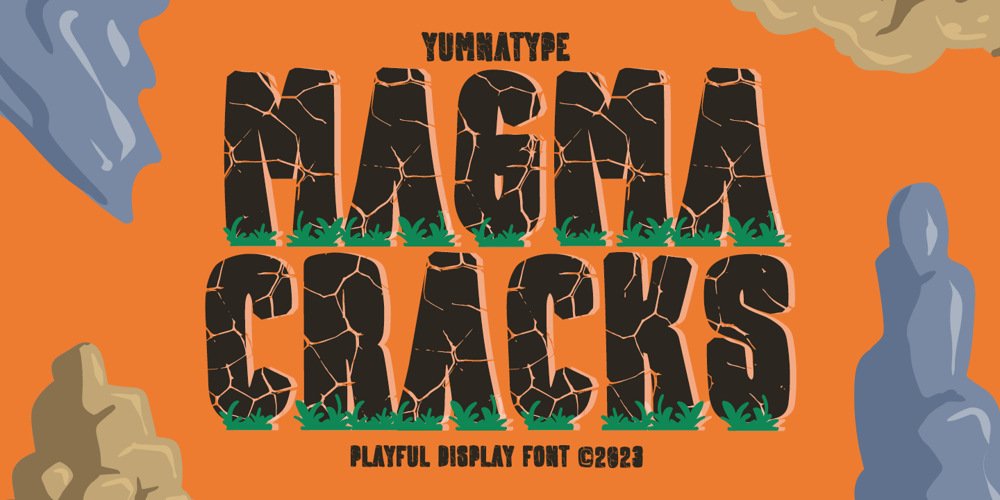
Magma Cracks
Magma Cracks font
Magma Cracks Font Family was designed by Donis Miftahudin and published by Yumna Type. Magma Cracks contains 1 styles and family package options. People often have trouble finding a perfect, prominent font to express the project values. You need an instantly attractive font that is able to stand out your designs for something unique and special without consuming a lot of time and costing some money. For that reason we have everything you need.Magma Cracks is a capitalized display font in a visually attractive design along with the big, round, high contrast, cracking letter designs as its unique characteristics. It is suitably applicable for any unique, different font designs to help you emphasize your messages in the graphic designs.This font’s cracking designs can express dramatic, prominent nuances and give unique textures resulting in the artistic displays. Magma Cracks provides a clipart in accordance with the font theme as a bonus and features you can enjoy.Features: Multilingual Supports PUA Encoded Numerals and Punctuations Magma Cracks fits best for various design projects, such as brandings, headings, magazine covers, quotes, printed products, merchandise, social media, etc. Find out more ways to use this font by taking a look at the font preview.Thanks for purchasing our fonts. Hopefully, you have a great time using our font. Feel free to contact us anytime for further information or when you have trouble with the font. Thanks a lot and happy designing.